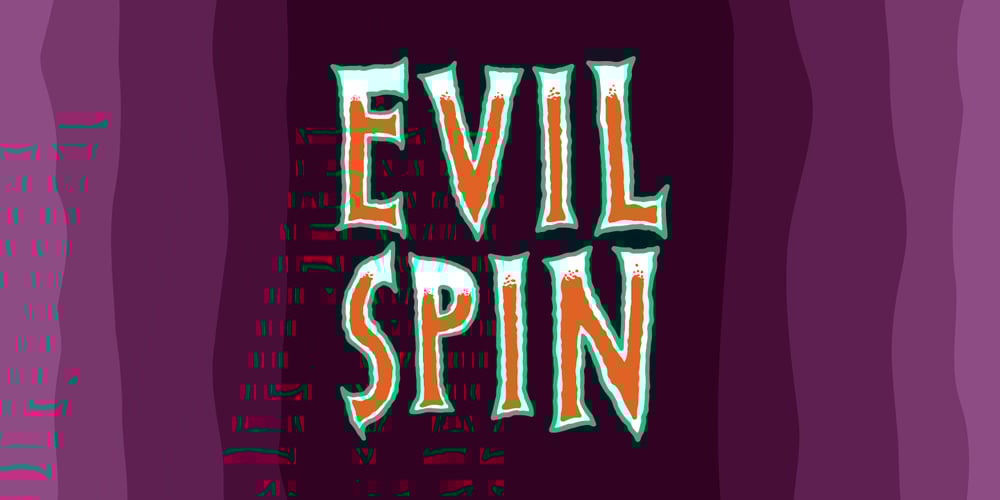
Evil Spin
Evil Spin font
Evil Spin Font Family was designed by Jakob Fischer and published by PizzaDude.dk. Evil Spin contains 4 styles and family package options. Evil Spin is inspired by some old horror poster. It has this eerie feeling to it, which leaves you with terror…no matter what you write!!!I’ve made 4 different versions of each letter, and they automatically changes as you type. And that goes for every layer if Evil Spin – mix and match the layers for even more creepy effects!